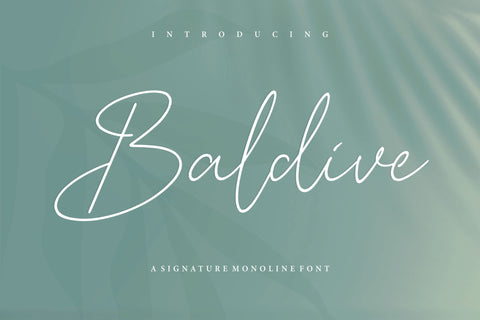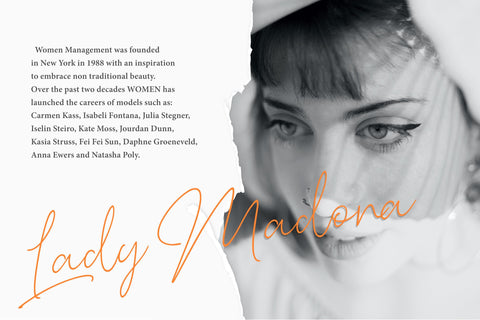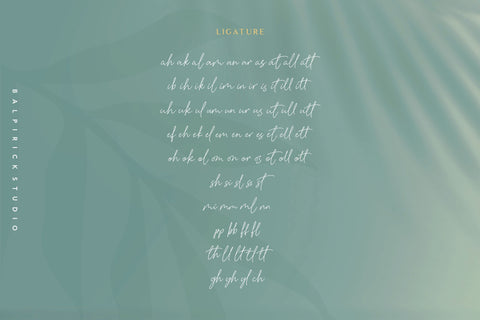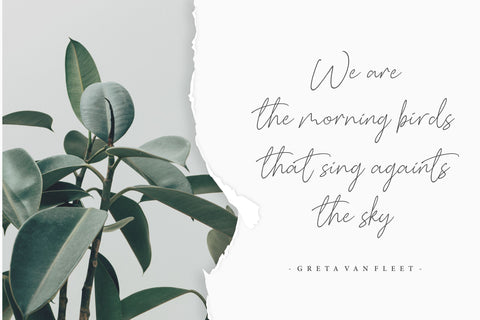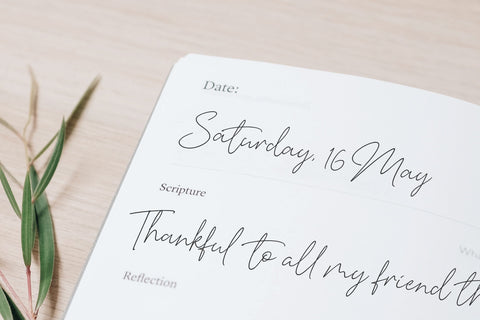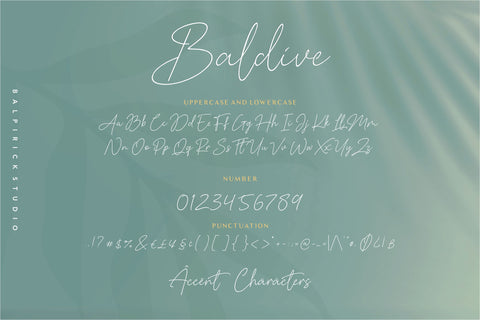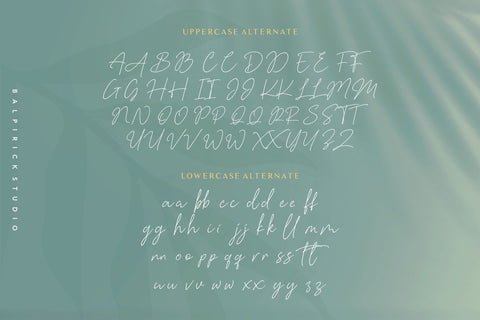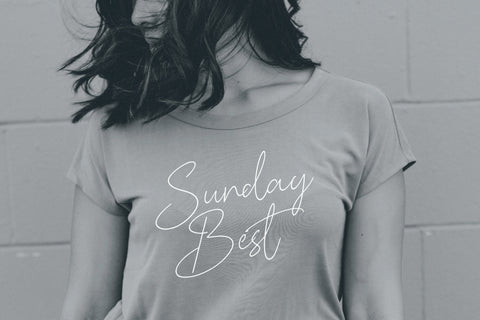
Baldive Signature Monoline Font
Proudly Present, Baldive a Signature Monoline Font.
Baldive it's a trendy signature font. and also very suitable for product packaging, branding projects, megazine, social media, wedding or just used to express words over the background.